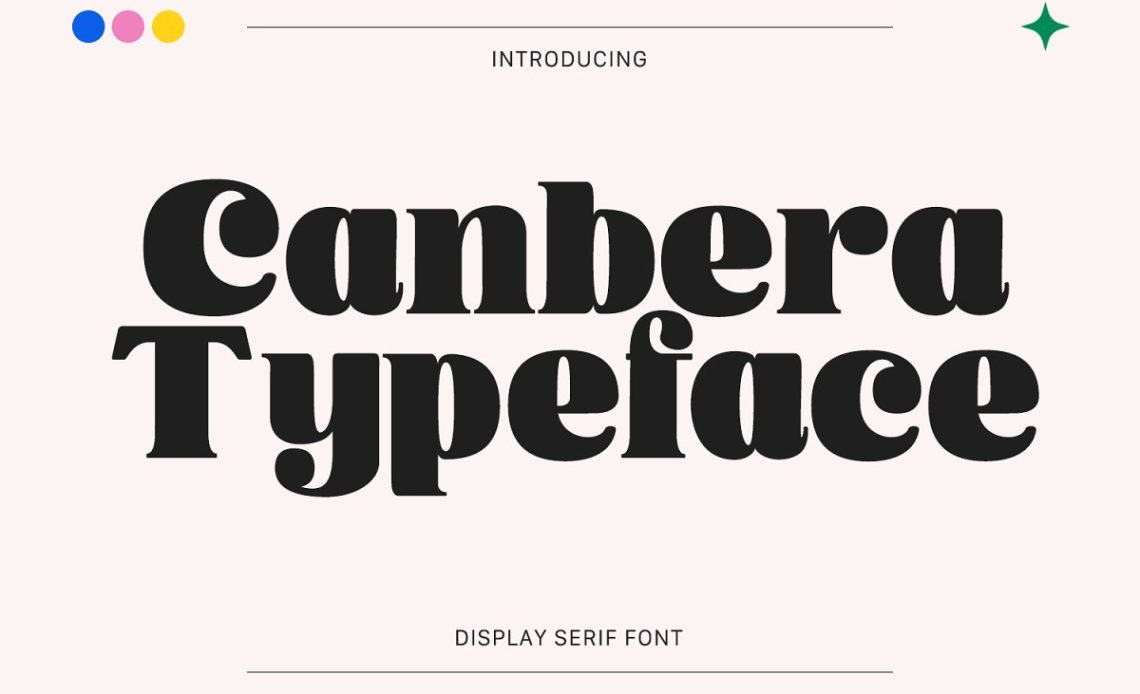
Looking for the perfect display font to make your ads pop? Look no further than Canbera - Display Typeface. Created by renowned designer Agam Rahmadan, this old style serif font boasts a funky, round, high-contrast, and bold shape with a retro touch that is sure to catch the eye of your target audience.
Canbera is not just any serif font - it is the best font for display ads. With its unique style, it is perfect for displayed and head text, logos, and any other creative design you can imagine. Its versatility and adaptability make it a must-have in your design toolkit.
But Canbera is more than just a pretty face. Its keyword-rich design ensures that it is easily discoverable by search engines, making it a great choice for anyone looking to elevate their online presence. Whether you're a small business owner or a seasoned marketer, Canbera is the font you need to stand out from the competition.